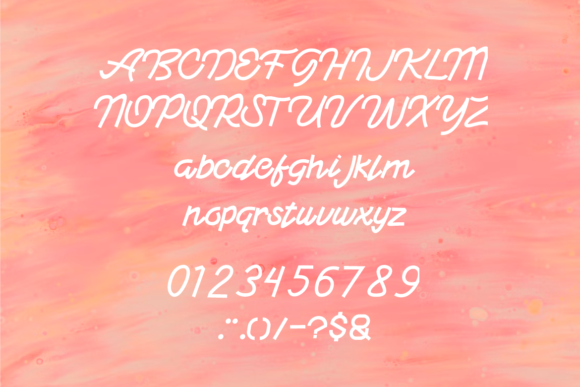
Introduction to Ainisti Font
Have you ever stared at a blank canvas, desperately searching for the perfect font to bring your creative project to life? It’s a feeling we’ve all been through, and for designers, it’s a challenge we face daily. But what if you stumbled upon a font that effortlessly adds elegance and sophistication to your designs? Enter the Ainisti Font, a delicate and vintage styled script font that will revolutionize your design projects.
Whether you’re working on a high-end branding project or a simple logo design, the Ainisti Font is a valuable addition to any design resource. Its high quality and intricate details make it perfect for designs that require a touch of class. And the best part? You can confidently add it to your projects, knowing that it will elevate your designs to the next level.
Key Features of Ainisti Font
- Unique, Hand-Drawn Design: Ainisti Font features a distinctive, hand-drawn style that adds a touch of creativity to any project.
Honest Review: Ainisti Font
I recently stumbled upon the Ainisti Font, and I must say it’s a great addition to any designer’s creative project. This beautiful, modern font is perfect for those looking for a high-quality design resource.
- ✨ Beautiful, elegant design that’s perfect for various creative projects
- ⚠️ Limited character set, which may not be suitable for longer texts or paragraphs
- ⚠️ Not ideal for body text, as it’s more suited for headings and titles
Overall, I’m impressed with the Ainisti Font. It’s a great addition to any designer’s toolkit, especially for creative projects that require a touch of elegance and sophistication. While it may have some limitations, it’s definitely worth checking out.
Tips for Getting the Most Out of Ainisti Font
Experiment with different text styles and colors to create visually appealing designs. Use the font in conjunction with other design resources, such as graphics and images, to create a cohesive look.
The Ainisti Font is ideal for use in creative projects, such as logos, brochures, and social media graphics. Its high-quality design and transparent background make it a versatile resource for designers and non-designers alike.